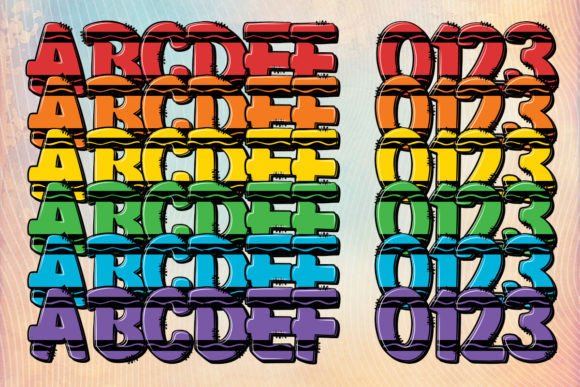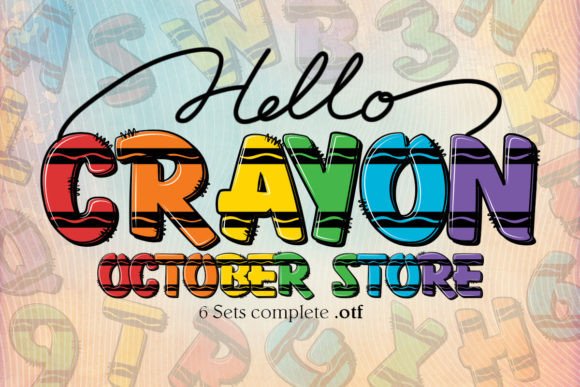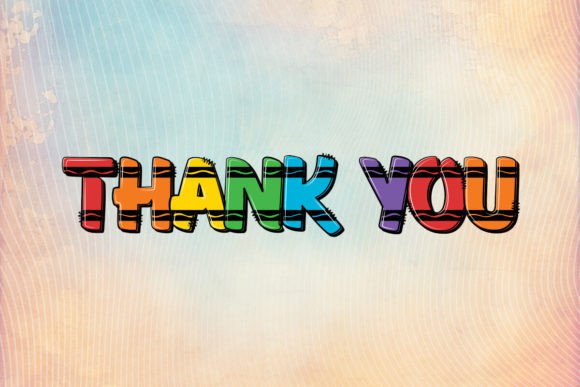
Crayon Font
About the Crayon Font
Make a bold statement with Crayon Font, a powerful and memorable font. Introducing “Crayon Colorful” a whimsical font that brings the colorful world of school artistry to life. 6 Styles is 6 Colors. With its vibrant school theme and playful design, this font captures the creativity and imagination of students. Featuring 10 different color fonts and letters shaped like crayons, “Crayon Colorful” offers endless possibilities for custom DIY craft projects, personalized names, sublimations, posters, and more. Let your imagination run wild with “Crayon Colorful” and unleash the artist within!